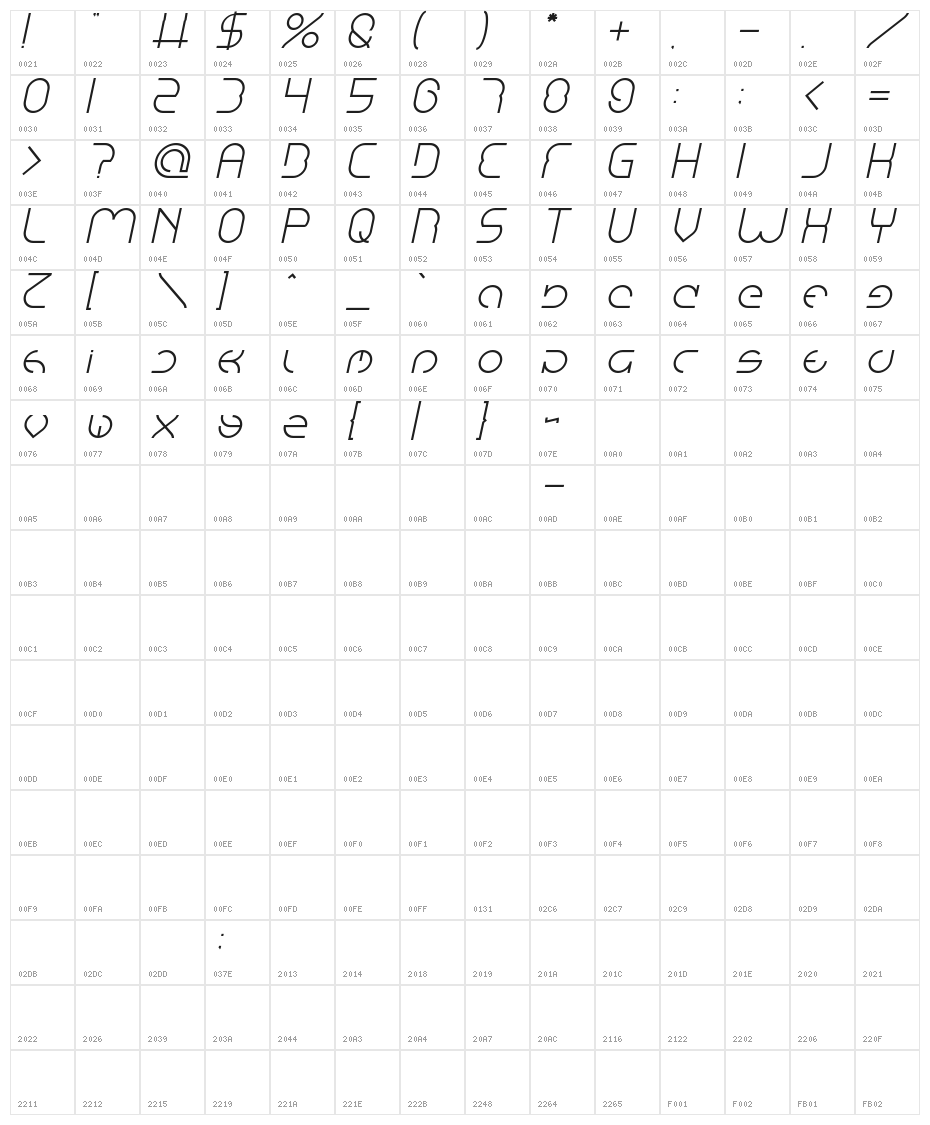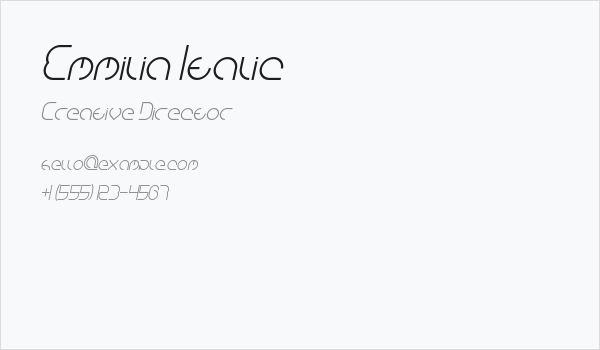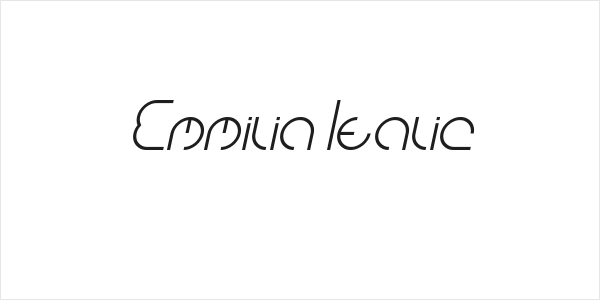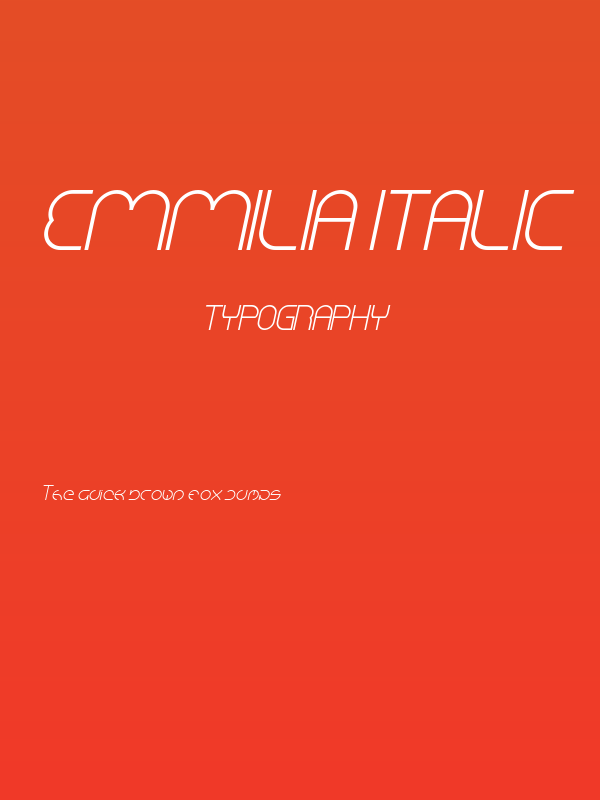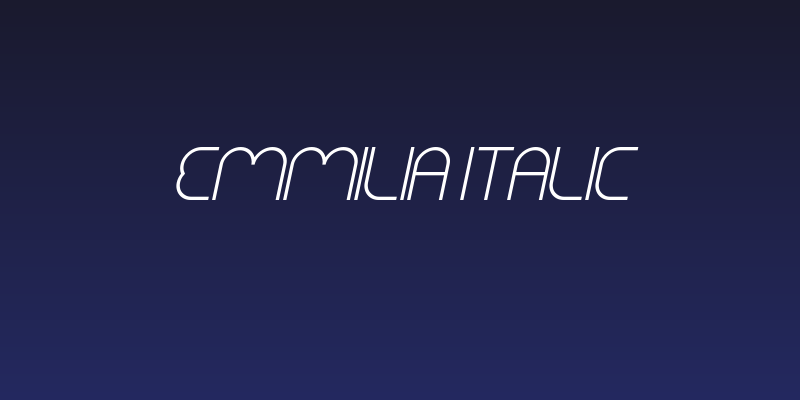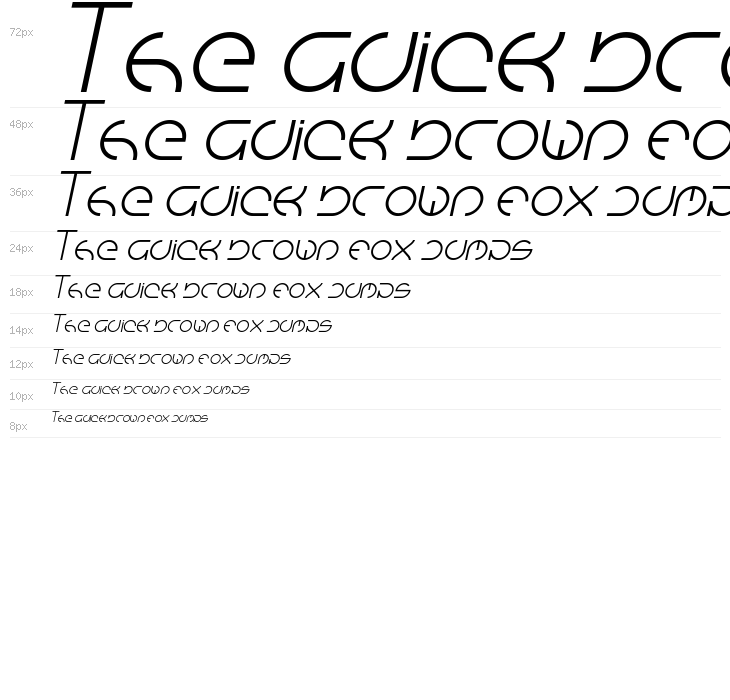
Emmilia Italic Font
Emmilia Italic Description
This font features a sleek and modern design with a distinct italic slant, giving it a dynamic and forward-moving appearance. The characters are constructed with clean, geometric lines and rounded edges, creating a harmonious blend of sharpness and softness. The uppercase and lowercase letters maintain a consistent style, with a futuristic touch that is evident in the unique curvature and angles of each character. The numerals and special characters follow the same design principles, ensuring a cohesive look across all elements. This font's minimalistic yet sophisticated style makes it suitable for contemporary design projects.
| Use Case | Logos, Headlines, Branding |
| Proposed Projects | Ideal for branding, tech-related designs, modern advertising, and innovative product packaging. |